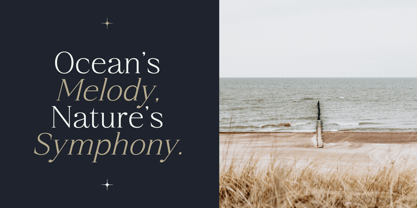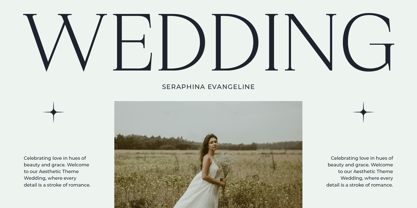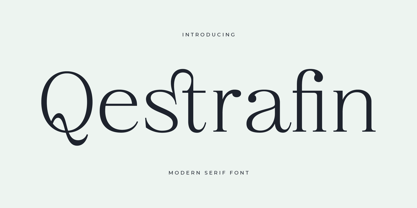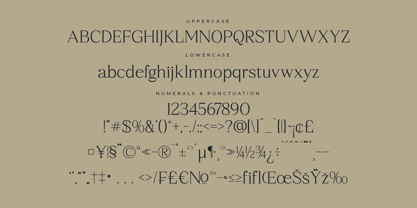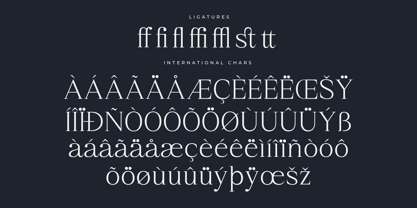
Qestrafin
by Letterena Studios
The Qestrafin Font Family was designed by Heru Utama Putra and published by Letterena Studios. Qestrafin contains 2 styles and family package options. More about this family
Qestrafin is an elegant and stylish serif font that embodies refined sophistication. With meticulously crafted letterforms and a graceful aesthetic, this typeface seamlessly blends classic charm with modern elegance. Ideal for projects requiring a timeless and distinctive typeface, Qestrafin adds a touch of sophistication and grace to your designs.